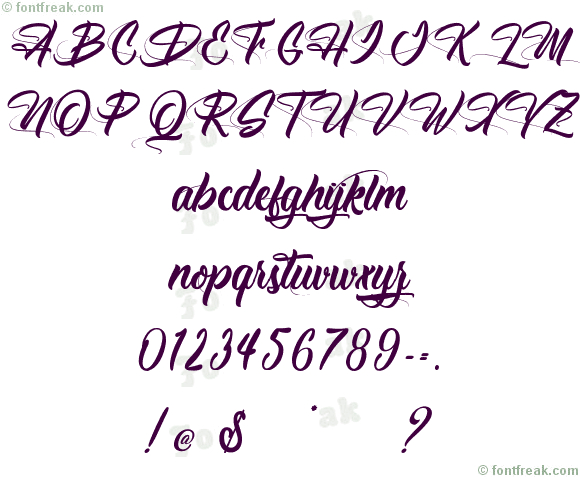
Antishbusy
Antishbusy is a captivating script font designed by Suthi Srisopha, characterized by its elegant, flowing lines and artistic flair. As a display typeface, it stands out with its handmade quality, giving projects a personal touch. The font features a medium stroke weight with gentle contrasts, allowing for easy readability while maintaining an artistic essence. The fluidity of the characters, combined with their well-balanced spacing, creates a harmonious visual that is both engaging and sophisticated.
This font is ideal for a variety of creative applications. Wedding invitations benefit from its romantic and whimsical style, making every invite feel special and unique. For restaurant menus, Antishbusy adds a touch of elegance that can elevate the dining experience, enticing patrons with its charming presentation. Additionally, it works well for branding projects, such as logos for boutique shops or artisanal products, where a distinctive and memorable identity is essential. Content creators can also leverage this font for social media graphics and promotional materials, ensuring their visuals capture attention in a crowded digital landscape.
What sets the Antishbusy font apart is its unique ability to blend artistry with functionality. The intricate design and personal touch resonate with audiences, making it a memorable choice for various creative endeavors. For those interested, the Antishbusy font free download offers a fantastic opportunity to incorporate this elegant typeface into their work, ensuring that every project stands out.